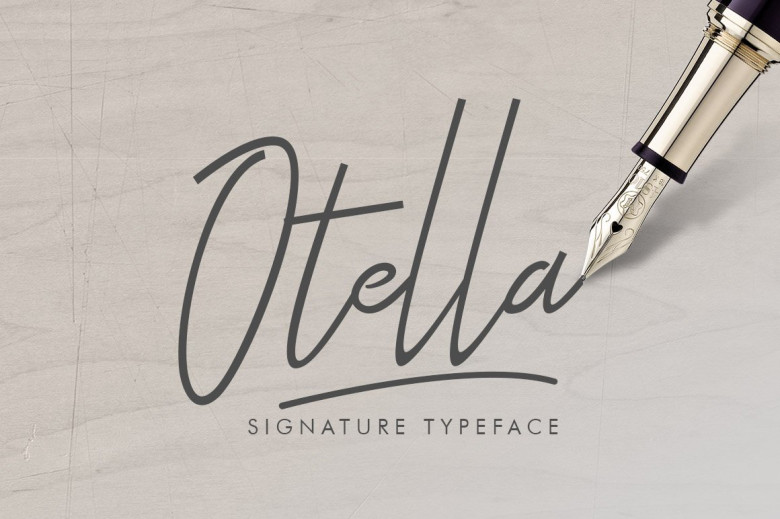
Otella Signature Font
Handwriting always makes a strong impression, because it makes a difference and a personality. Introducing Otella Signature Font! Otella designed by Khurasan.Otella Signature is a fresh and unique font that features a thin, almost monoline design.